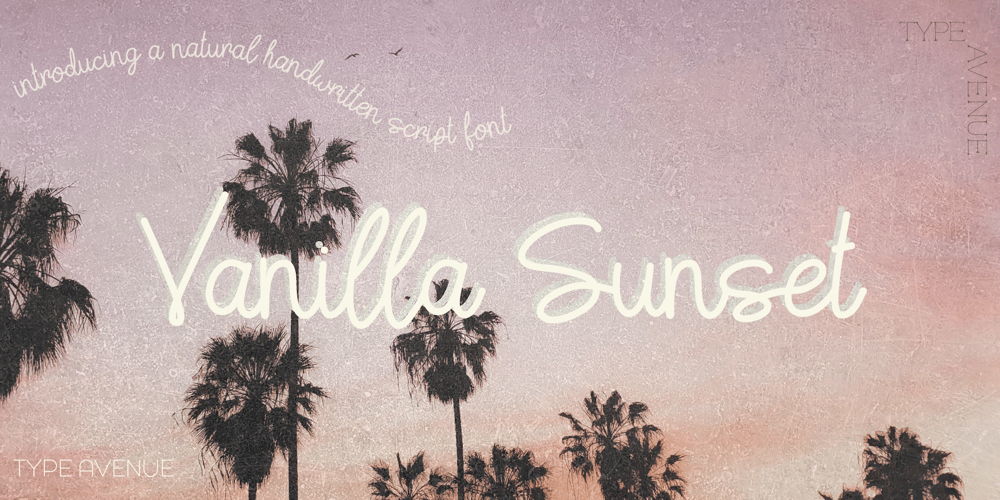
Vanilla Sunset
Vanilla Sunset font
Vanilla Sunset Font Family was designed by Jess J and published by Type Avenue. Vanilla Sunset contains 1 styles and family package options. Vanilla Sunset is a handwritten script font. This is natural cursive font that mimics the imperfect nature, unevenness, and slight slant that only comes from handwriting. It’s perfect for soft and feminine compositions along with beach and soft pastel themes.